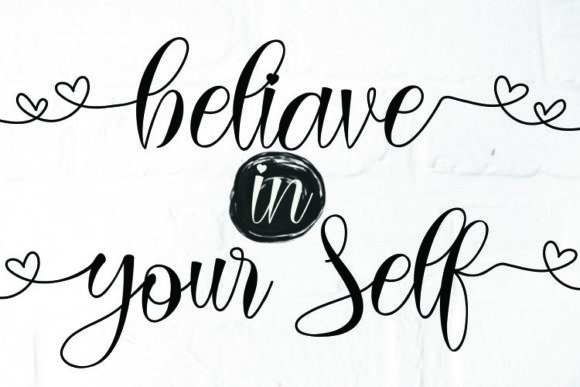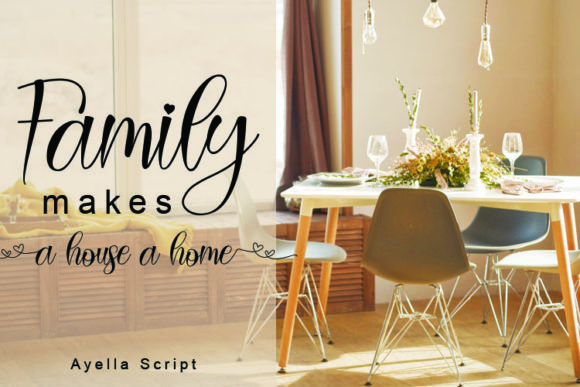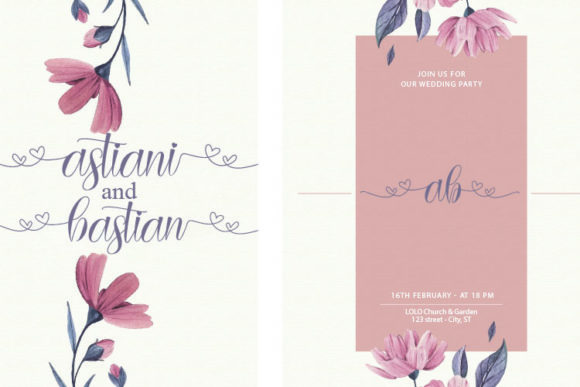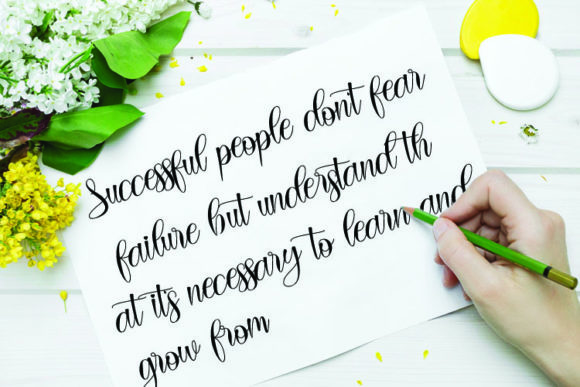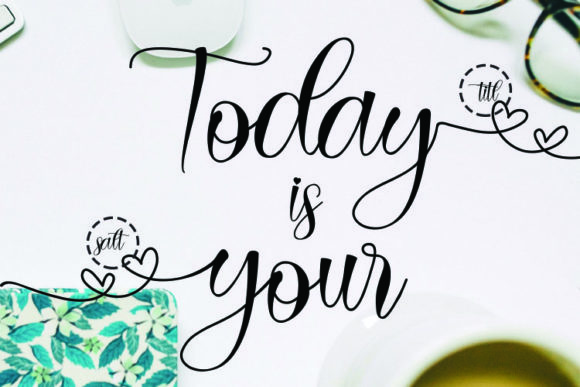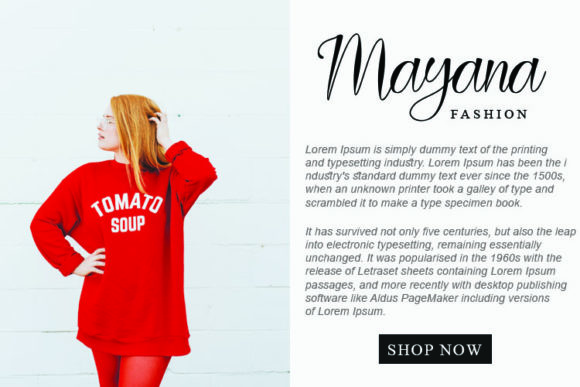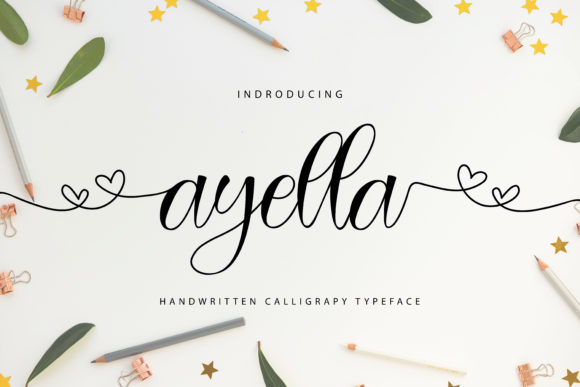
Ayella Font: The Ultimate Handwritten Font for Creative Projects
Are you looking for a font that can add a touch of warmth and personality to your creative projects? Look no further than the Ayella Font. This cute and casual handwritten font is designed to bring a friendly feel to your designs, making it perfect for a wide range of applications. In this article, we’ll take a closer look at the features and benefits of the Ayella Font, and explore how you can use it to take your designs to the next level.
What is Ayella Font?
Ayella Font is a beautifully crafted handwritten font that boasts an incredibly friendly feel. Its casual and approachable style makes it perfect for designers and crafters who want to add a personal touch to their work. Whether you’re creating wedding invitations, social media posts, or greeting cards, Ayella Font is the perfect choice.
Key Features of Ayella Font
So, what makes Ayella Font so special? Here are just a few of its key features:
- Gorgeous Swashes and Ligatures: Ayella Font features stunning swashes and ligatures that make this script incredibly versatile. These decorative elements can be used to add a touch of elegance and sophistication to your designs.
- Alternate Glyphs and Ligatures: In addition to its standard glyphs, Ayella Font also features a range of alternate glyphs and ligatures. These can be used to add variety and interest to your designs.
Uses for Ayella Font
So, what can you use Ayella Font for? The possibilities are endless! Here are just a few ideas to get you started:
- Wedding Invitations: Ayella Font is perfect for creating beautiful and elegant wedding invitations. Its friendly feel and gorgeous swashes make it a great choice for this special occasion.
- Stationary Art: Use Ayella Font to create stunning stationary art, including greeting cards, thank you cards, and more.
- Social Media Posts: Add a personal touch to your social media posts with Ayella Font. Its casual and approachable style makes it perfect for creating eye-catching graphics and posts.
- Greeting Cards: Ayella Font is also great for creating cute and personalized greeting cards for special occasions.
Tips for Using Ayella Font
Here are a few tips for getting the most out of Ayella Font:
- Experiment with Swashes and Ligatures: Don’t be afraid to experiment with the font’s gorgeous swashes and ligatures. These can be used to add a touch of elegance and sophistication to your designs.
- Mix and Match Glyphs: Take advantage of the font’s alternate glyphs and ligatures to add variety and interest to your designs.
- Use it with Other Fonts: Ayella Font can be paired with a range of other fonts to create stunning and unique designs.
| Font Name | Ayella Font |
| Author | Letterfand.Studio |
In conclusion, Ayella Font is a versatile and beautiful handwritten font that’s perfect for designers and crafters. Its friendly feel, gorgeous swashes, and ligatures make it a great choice for a wide range of creative projects. Whether you’re creating wedding invitations, social media posts, or greeting cards, Ayella Font is sure to impress. So why not give it a try and see what amazing designs you can create?
- What is Ayella Font?: Ayella Font is a cute and casual handwritten font with an incredibly friendly feel.